Lucky Bastard
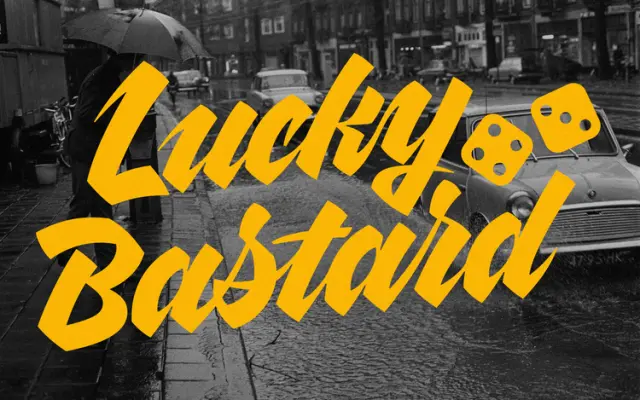
A custom angular brush script logotype created for an Amsterdam streetwear brand, paired with a monogram and dice icon.
Designed as a bespoke brand identity commission rather than a retail typeface, the logotype features crisp, angular brushwork suited to a streetwear aesthetic. It is accompanied by a matching monogram and a dice icon evoking the lucky number seven, all rendered in a black, yellow and white palette. No retail font appears to be available; this entry represents a custom lettering project only.
Described explicitly as a brush script logotype with angular, crisp strokes; fits the script category and brush script subcategory.